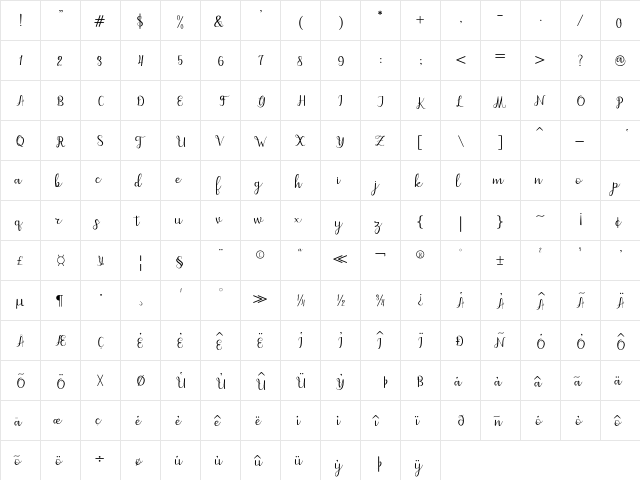
dahlia script Regular Font Preview
dahlia script Regular
dahlia script Regular Font Details
| Foundry | Fajriadi_pholetter |
| Designer | Fajriadi_pholetter |
Design Context for dahlia script Typeface
dahlia script brings a calligraphic fluidity to the page — its connecting strokes and expressive curves give it an unmistakably human quality.
Font Pairing: Combine dahlia script with a simple geometric sans for maximum contrast — the tension between flowing curves and clean structure is a classic typographic pairing.
Pro Tip: Pair dahlia script with a clean sans-serif for supporting text. The contrast between fluid script and geometric structure creates an elegant typographic hierarchy.